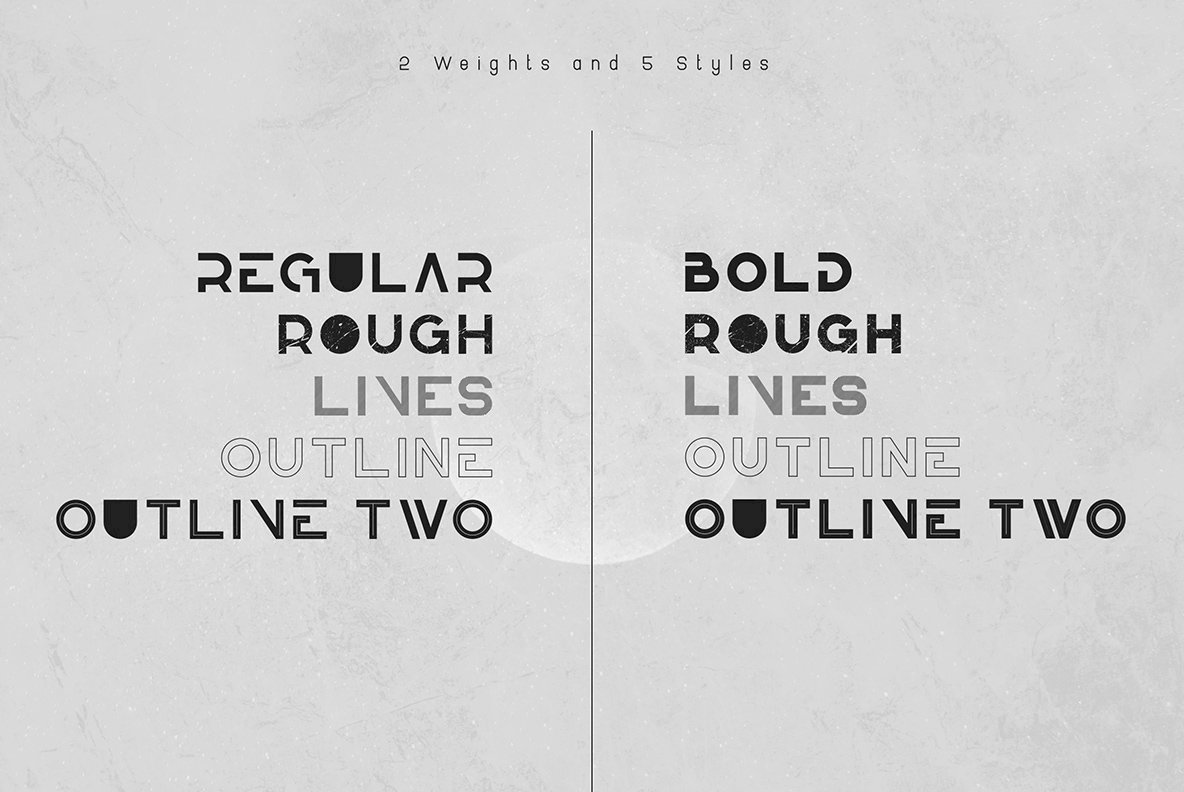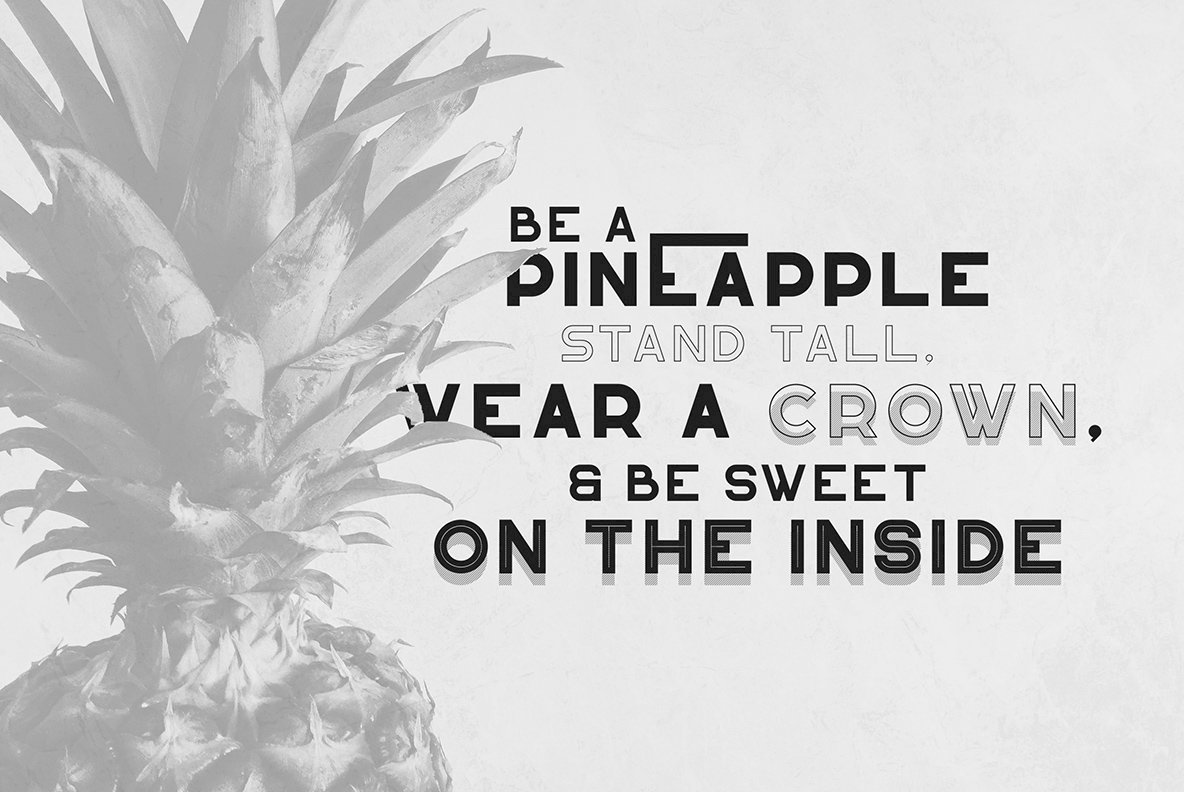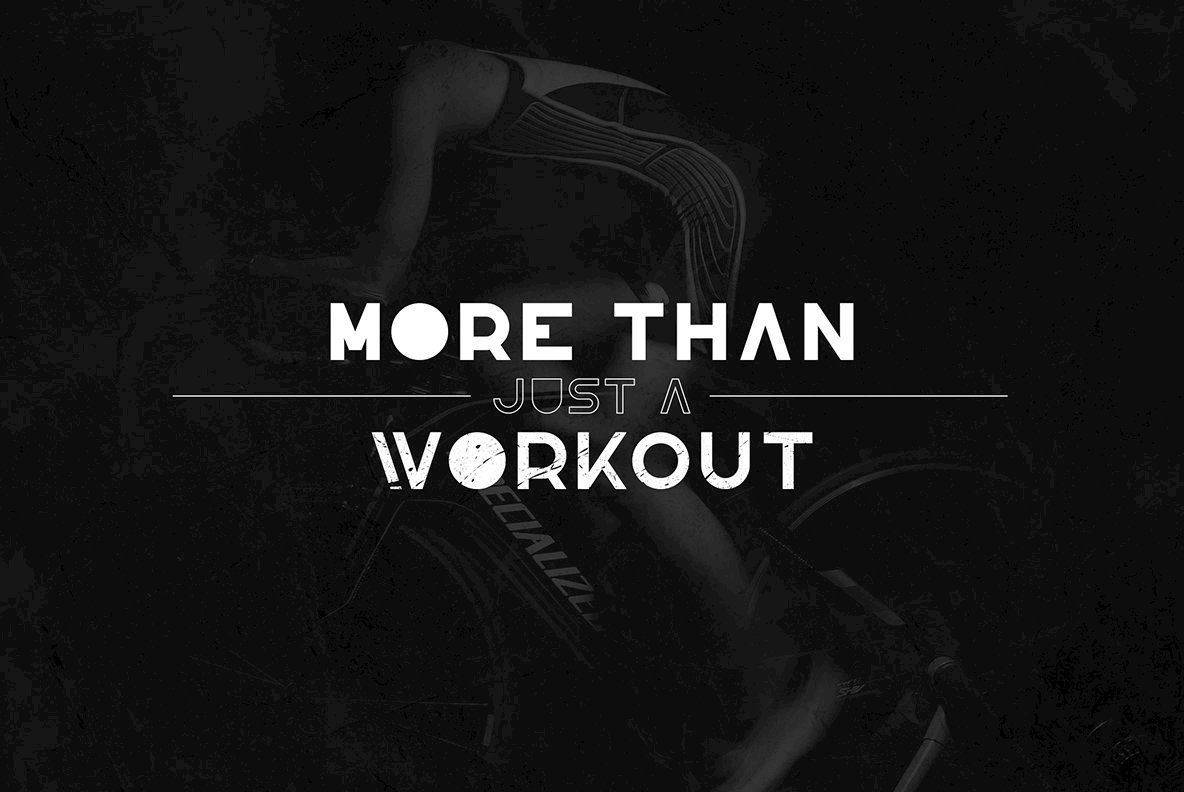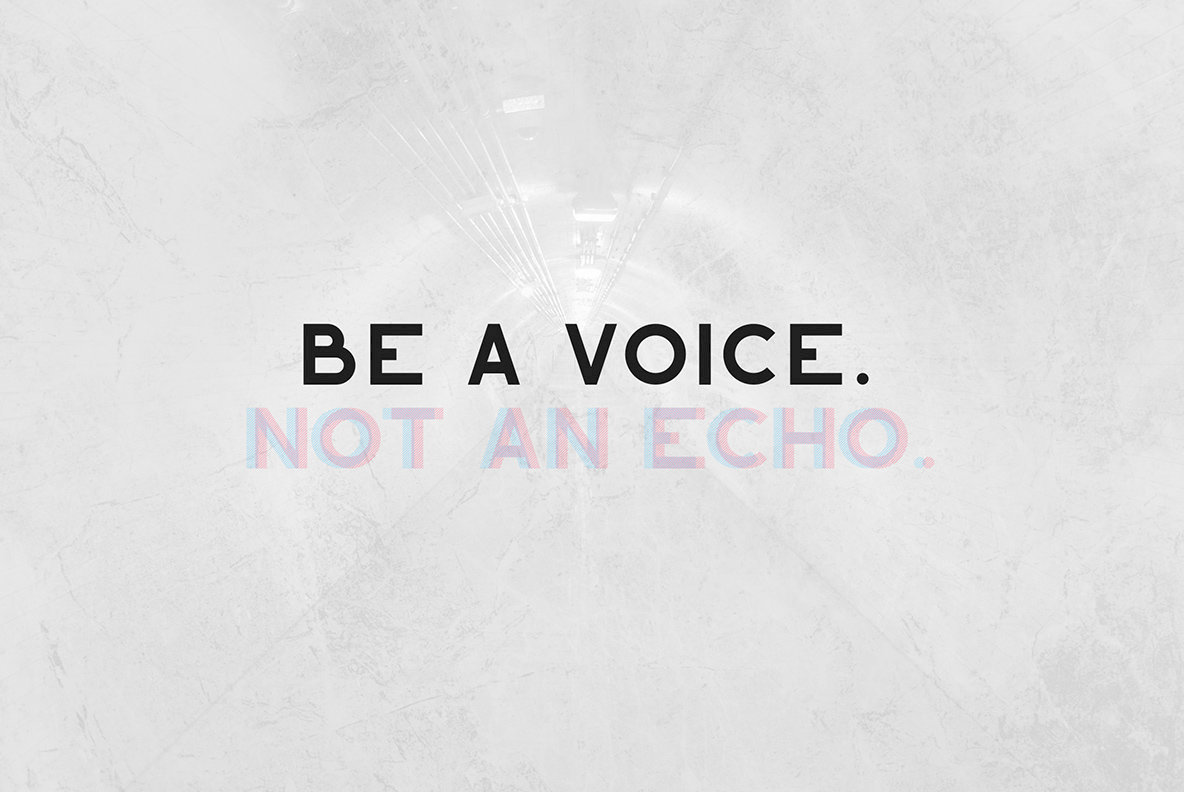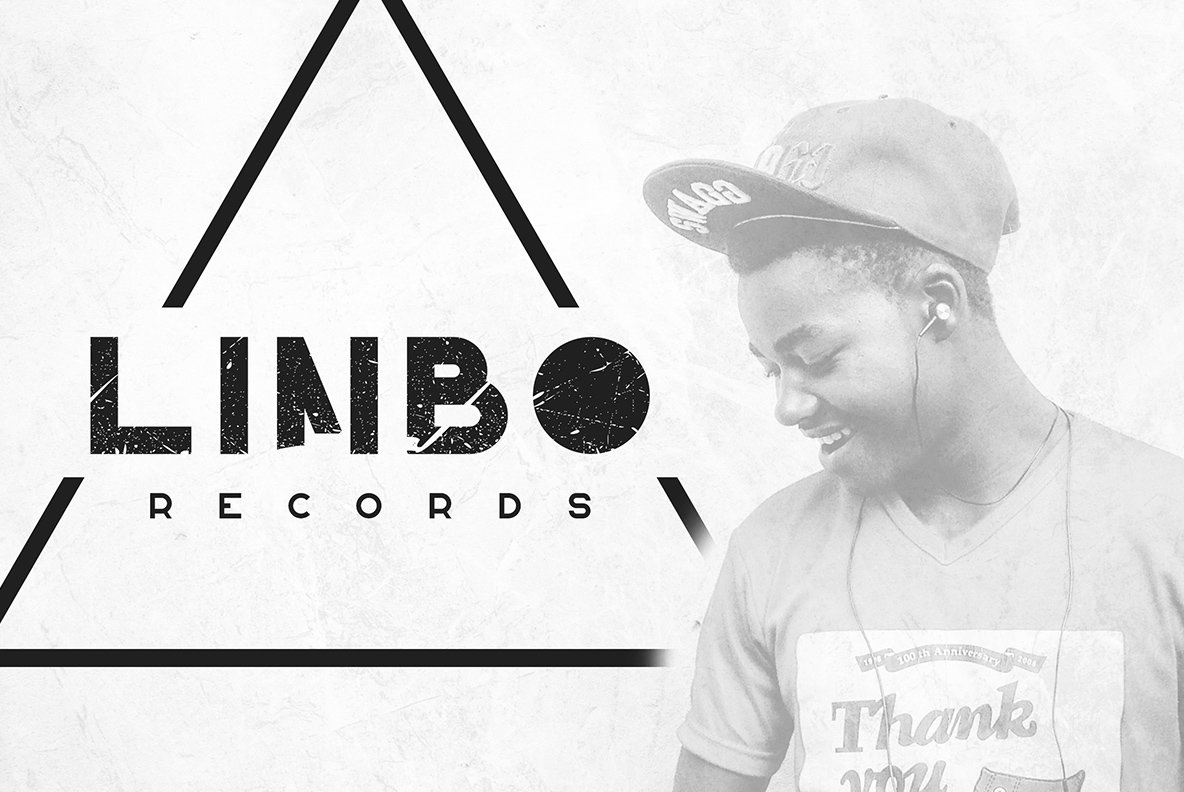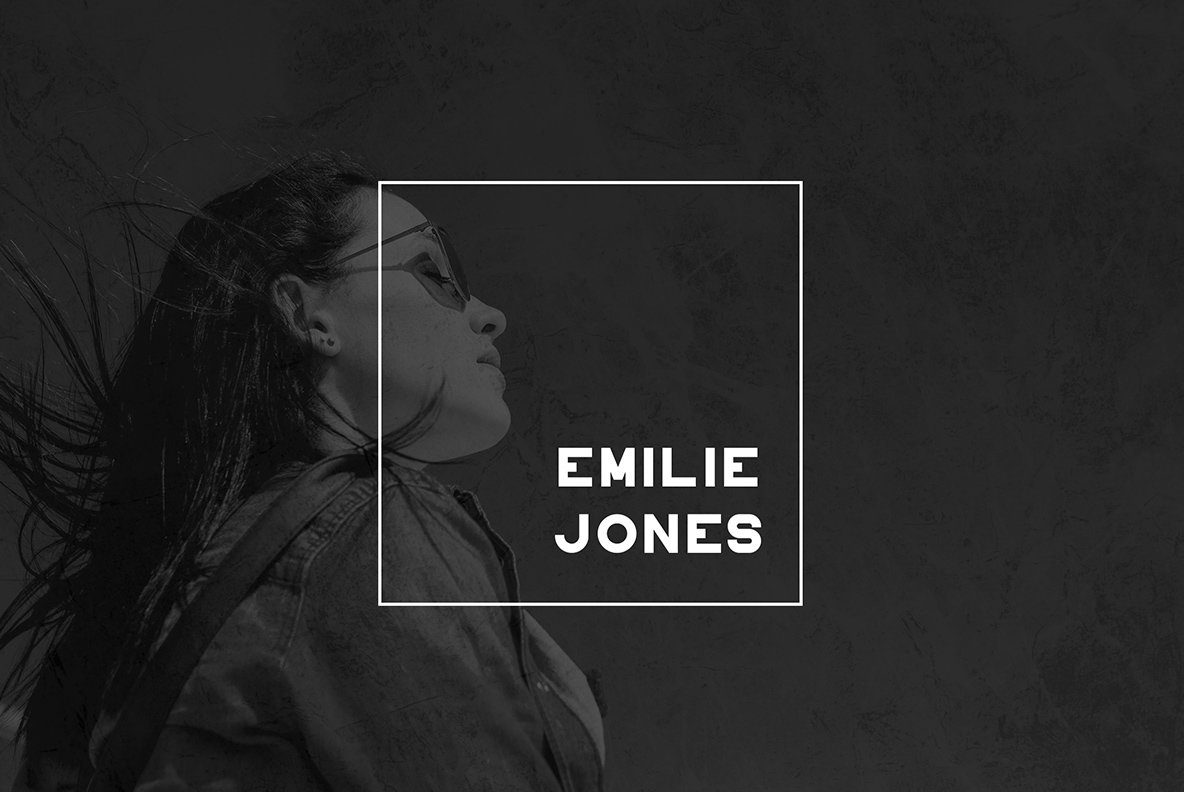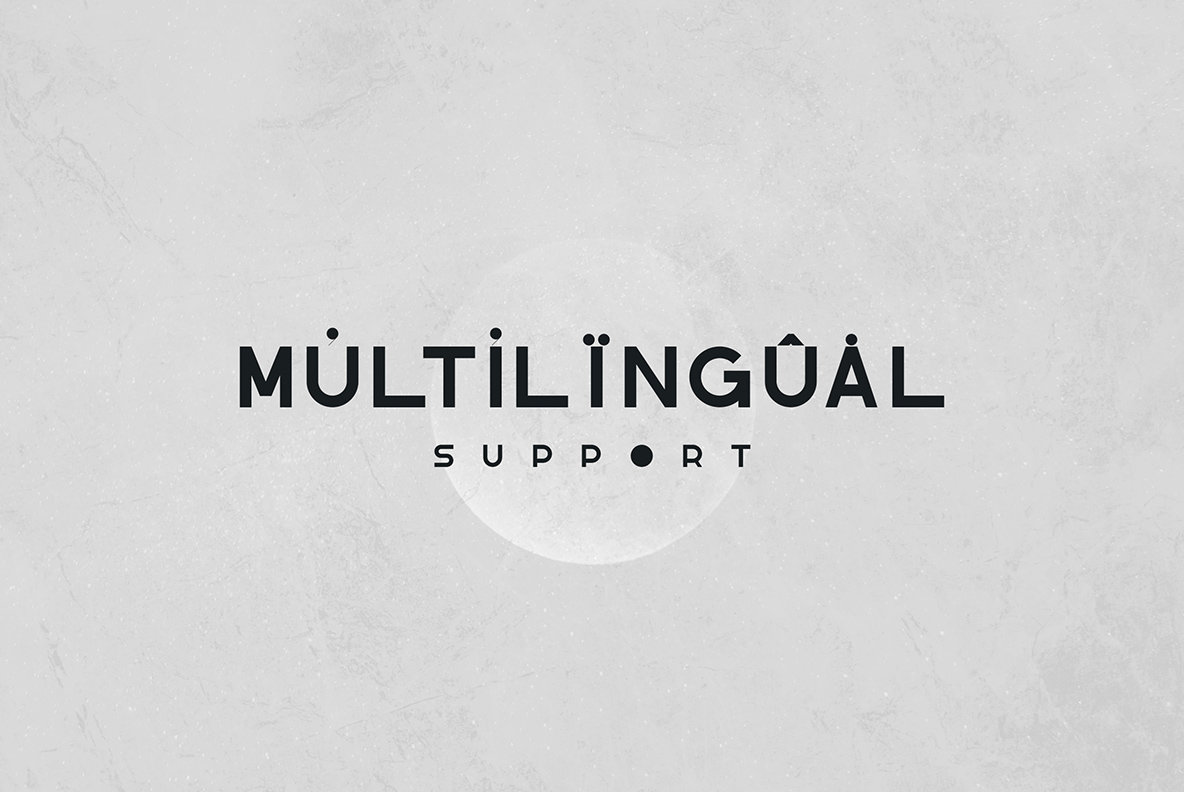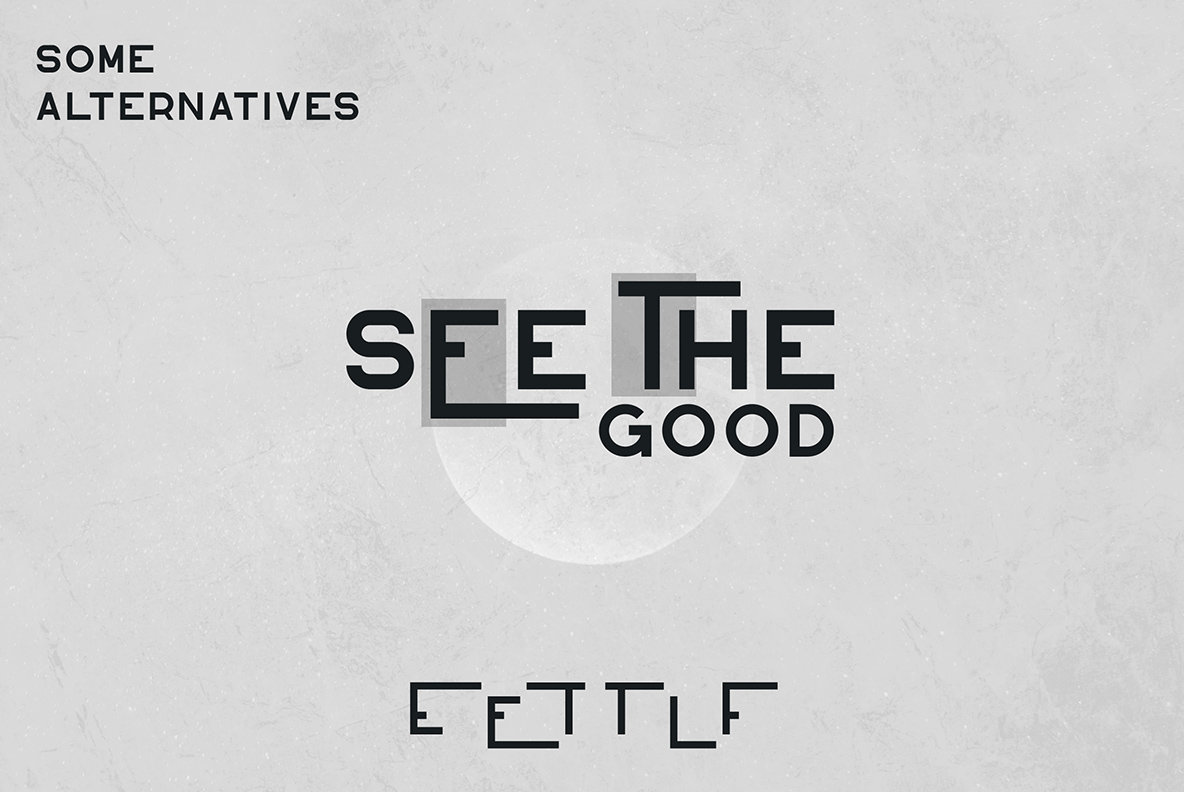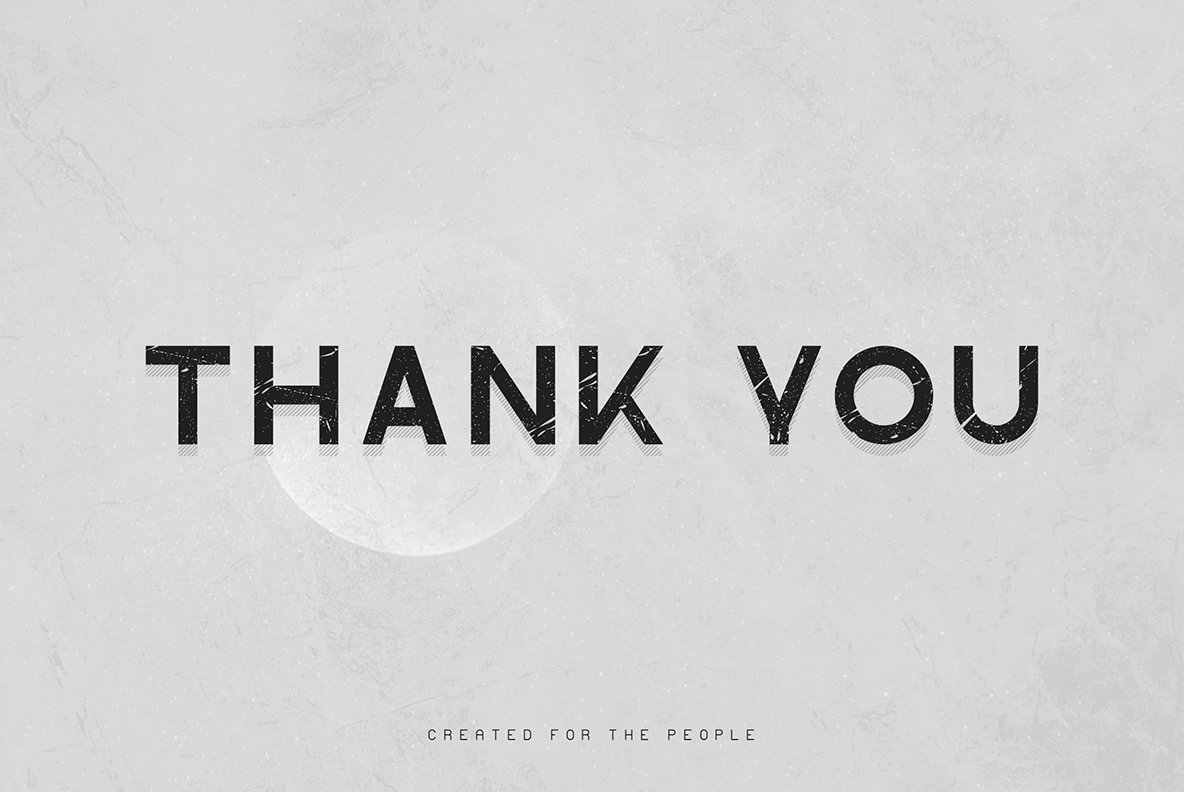
Knowhere Font
Introducing Knowhere, a meticulously designed font family that epitomizes geometric precision and modern elegance. With its two weights and five distinct styles, it offers remarkable versatility for a wide range of design projects. Its clear and clean forms make Knowhere an ideal choice for both large headlines and small text, ensuring aesthetic coherence and readability in any context. Whether you're crafting branding materials, designing homewares, or creating captivating magazine headers, Knowhere provides the stylistic edge needed to elevate your design. This font family is equipped with comprehensive multilingual support, allowing seamless integration into diverse linguistic presentations. It serves as a sophisticated text overlay capable of enhancing any background image with its sharp and defined contours. Features:Knowhere: A Geometrical Font Family for Diverse Designs